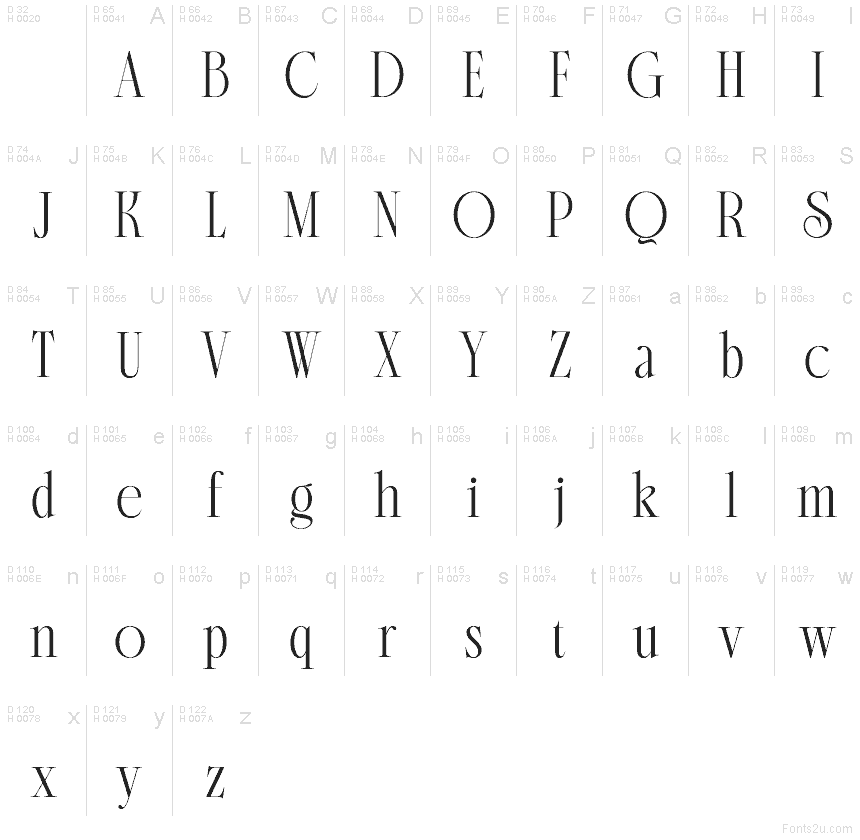
CS Masque Regular Demo
CS Masque font by Craft Supply Co. is an elegant serif font with sophisticated, classic influences from traditional typography. It has beautifully structured curves and lines, polished angles, and overall elegant textured stroke finishes. In its condensed width form, this serif comprises an exquisite balance of thick and thin elements to project disciplined professional looks.
This free serif font can be suitable for many applications including logo design, brand identity creation, printed or digital advertisements or book titles & covers designs; Large document headers & footers as well as luxurious product packaging where classical beauty needs projection would benefit from CS Masque’s unique style!